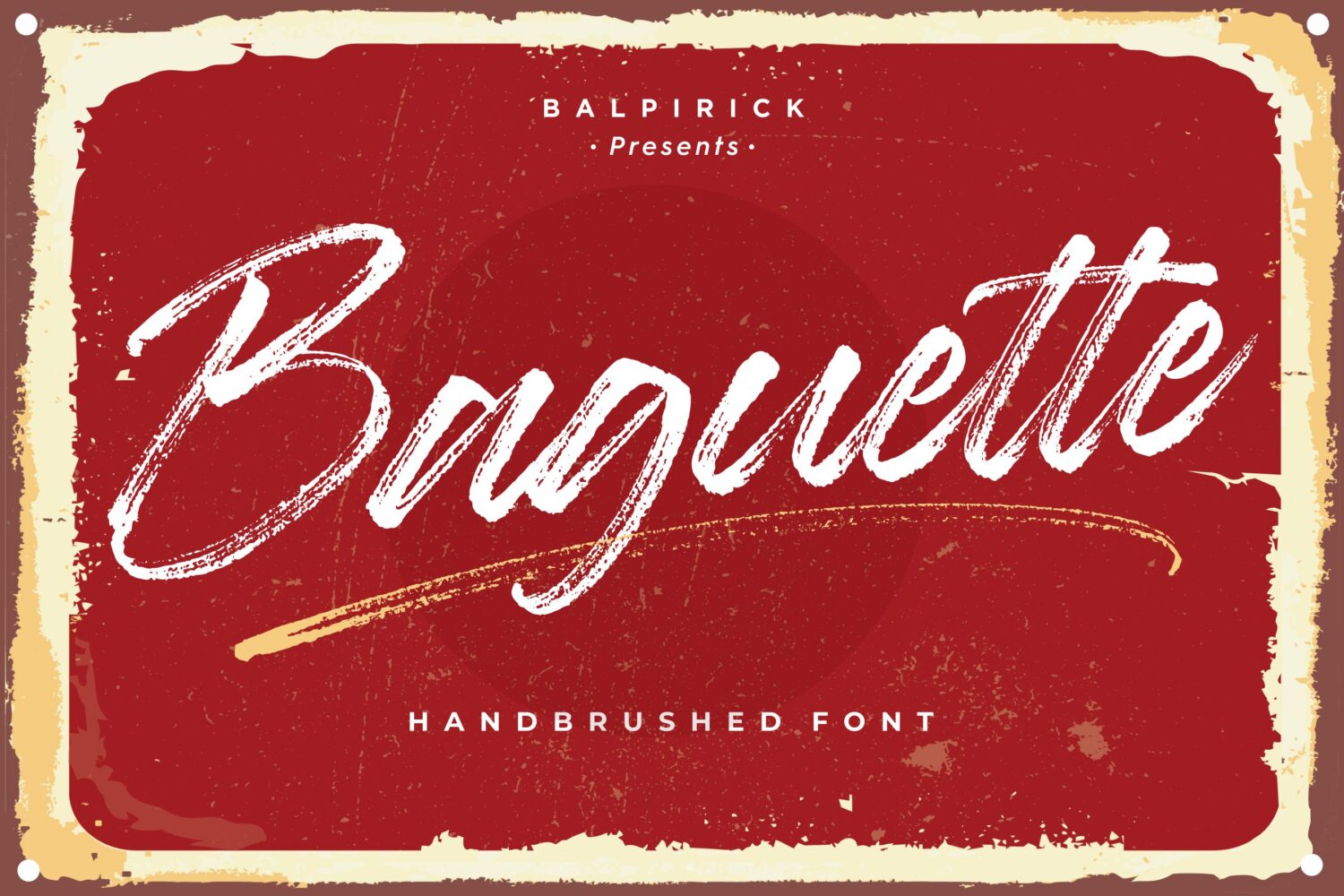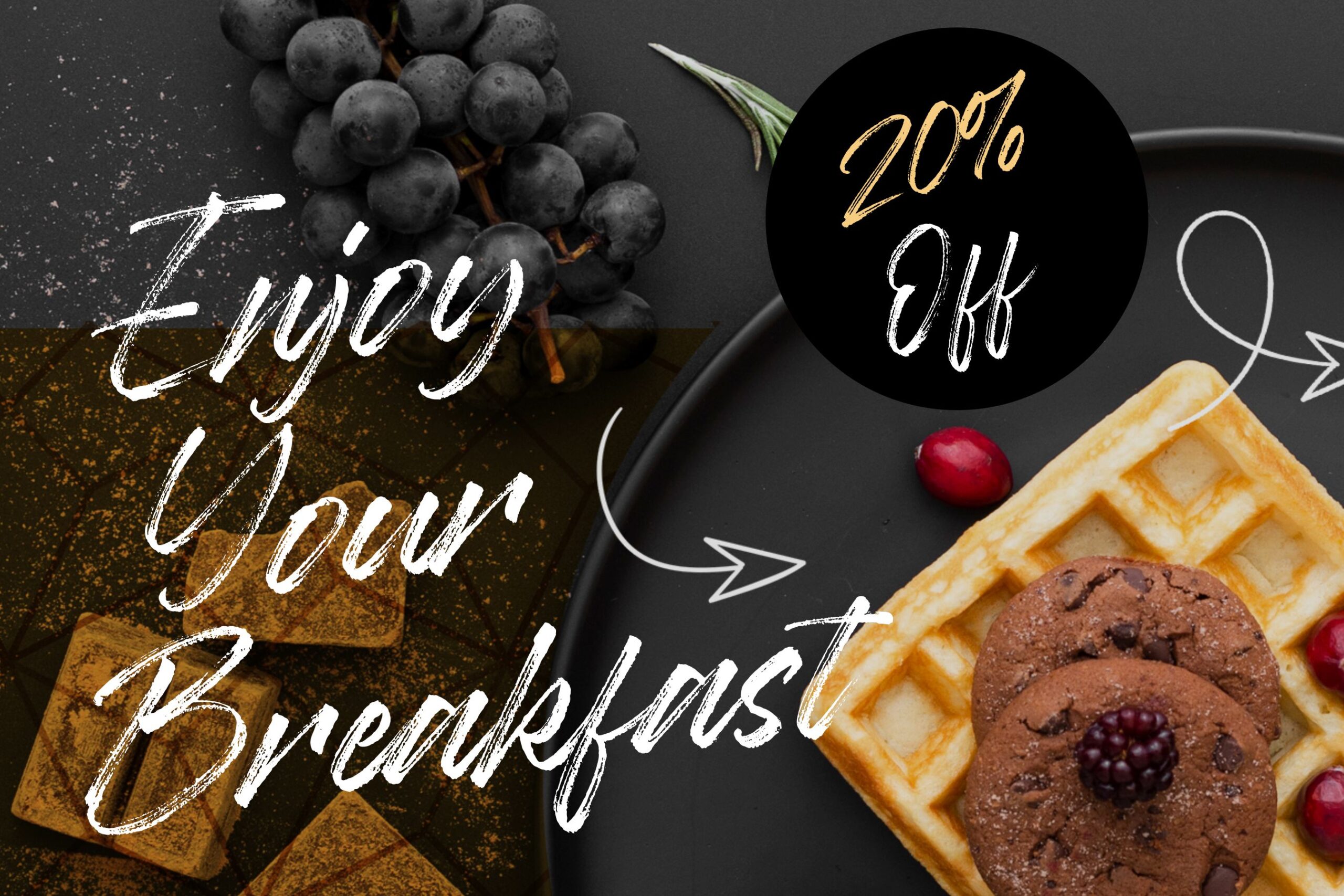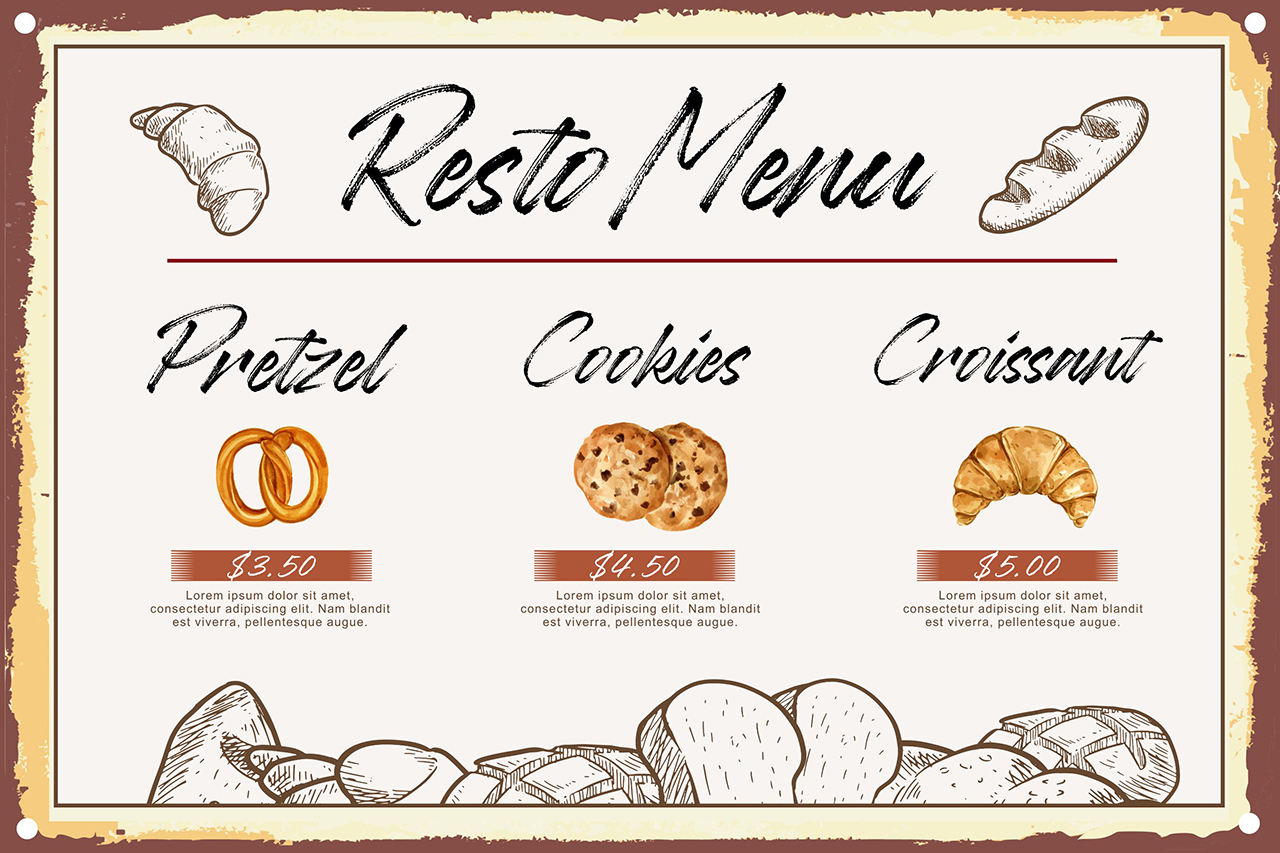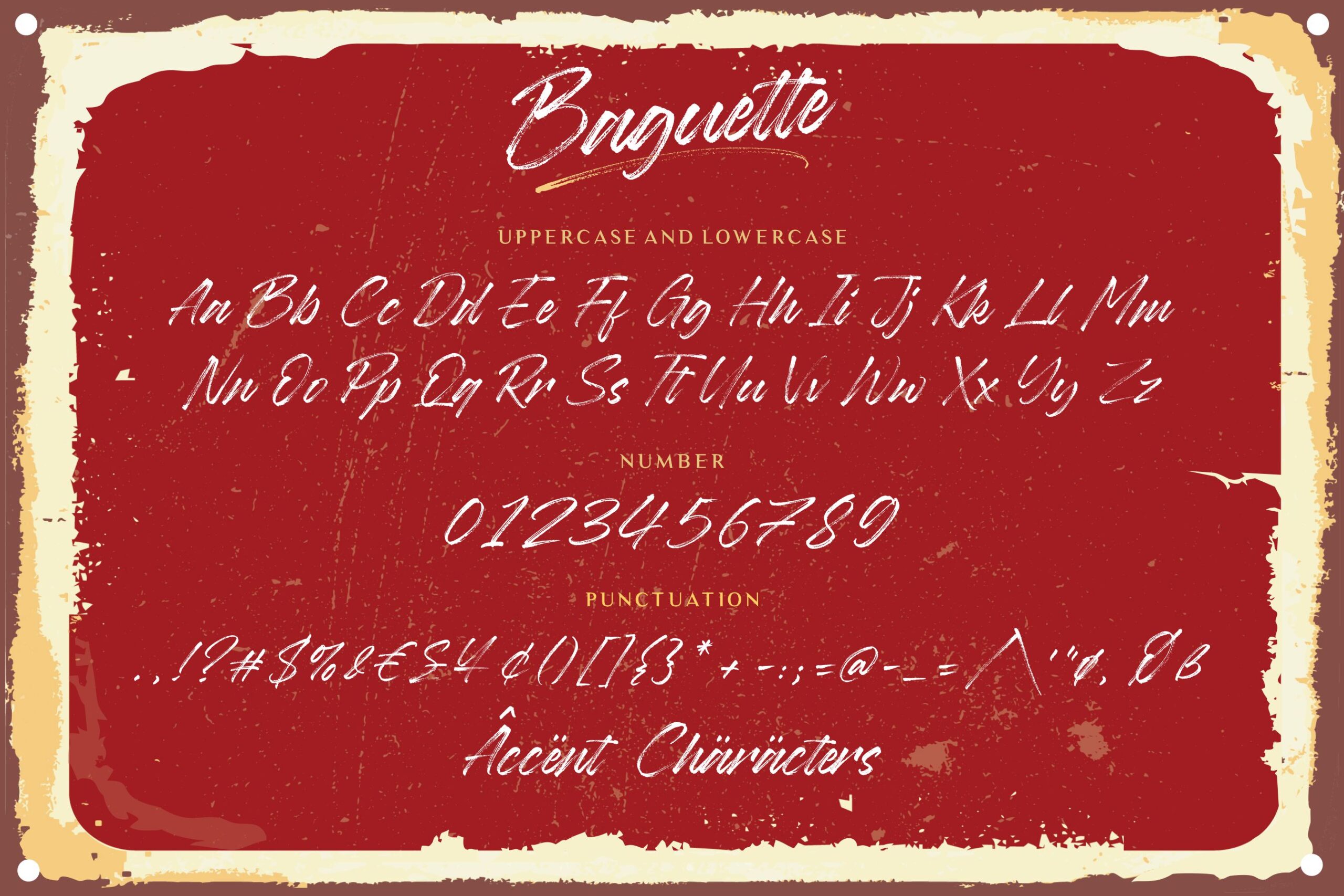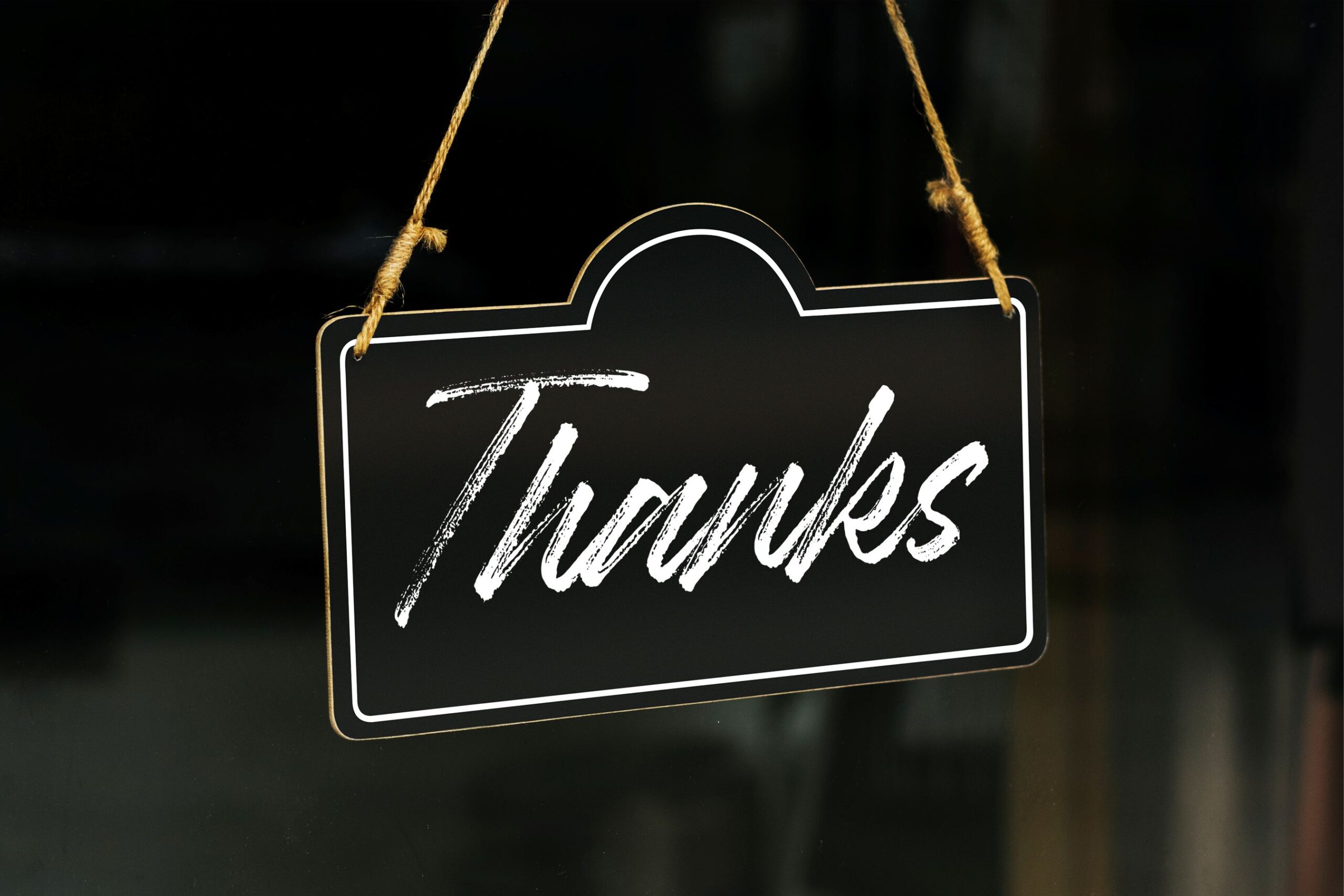
Baguette Natural Handbrushed Free Font
Baguette Natural Handbrushed Free Font is perfect for product packaging, logo, invitation, stationery, branding project, label, photography, watermark, magazine, social media post, wedding, or just used to express words above the background. This free typeface was designed by a talented Balpirick Studio. If you like it don’t forget to check out the full version.